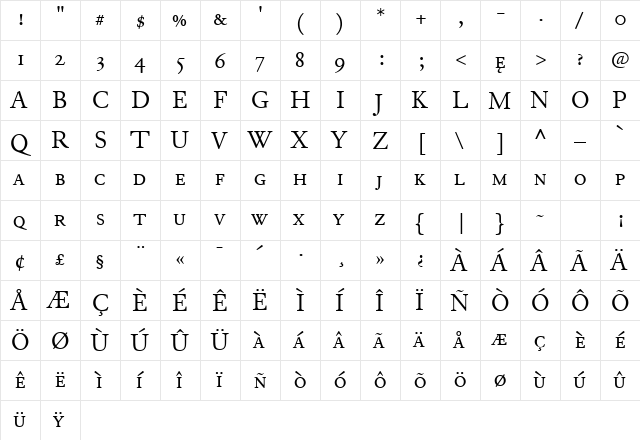
JuniusSmallCaps Regular
Design Context for JuniusSmallCaps Typeface
JuniusSmallCaps offers clean, dependable letterforms without strong stylistic allegiance, making it a practical choice for designers who need flexibility.
Pro Tip: Pair JuniusSmallCaps with a font of contrasting weight or personality to build a more expressive typographic hierarchy.